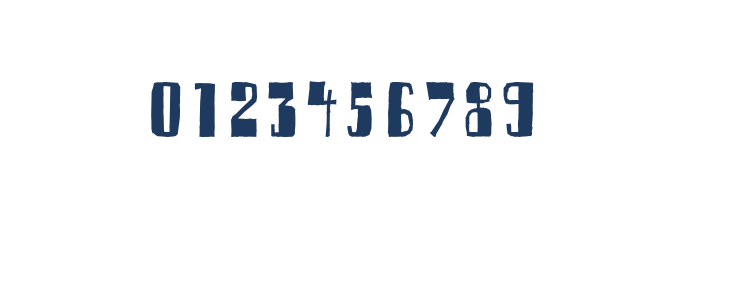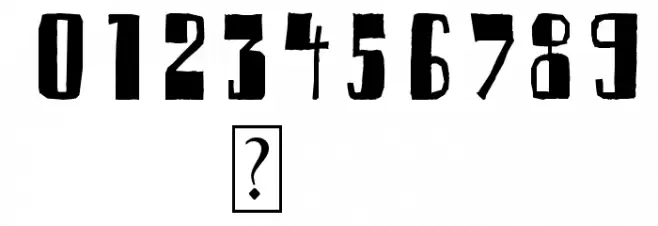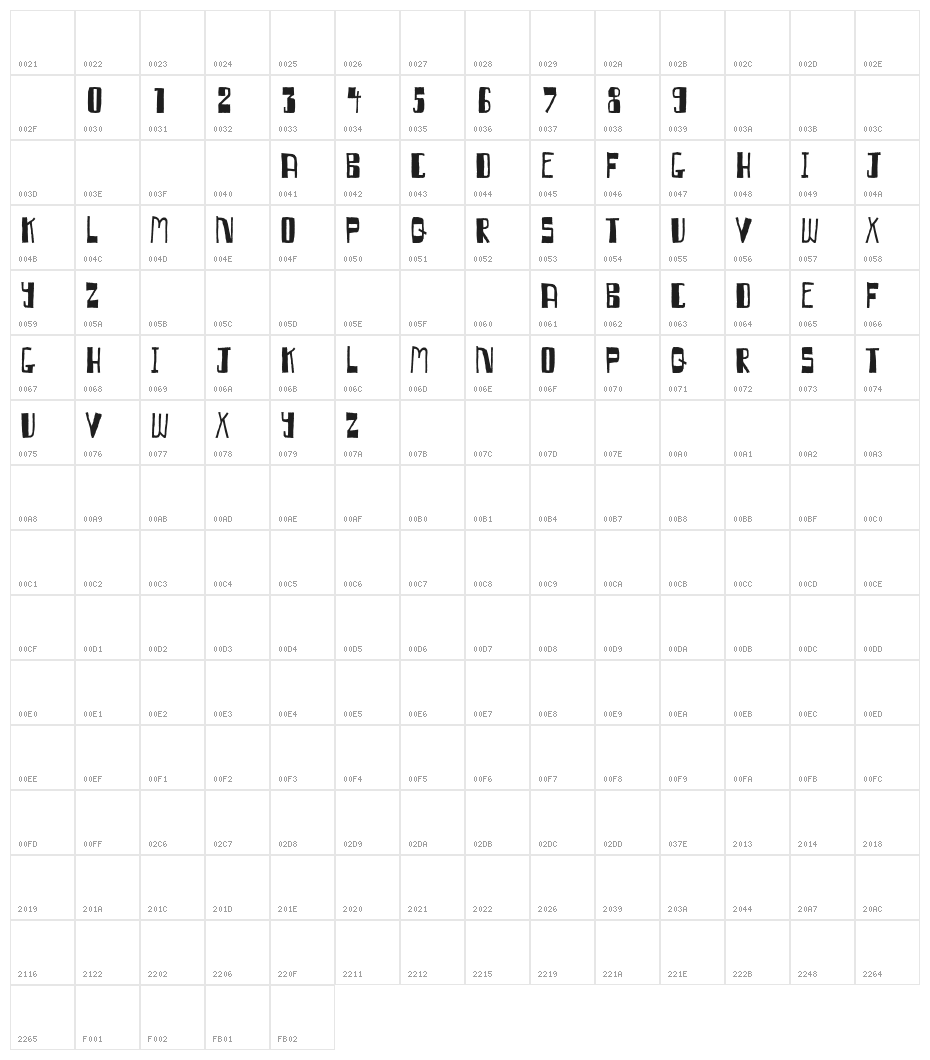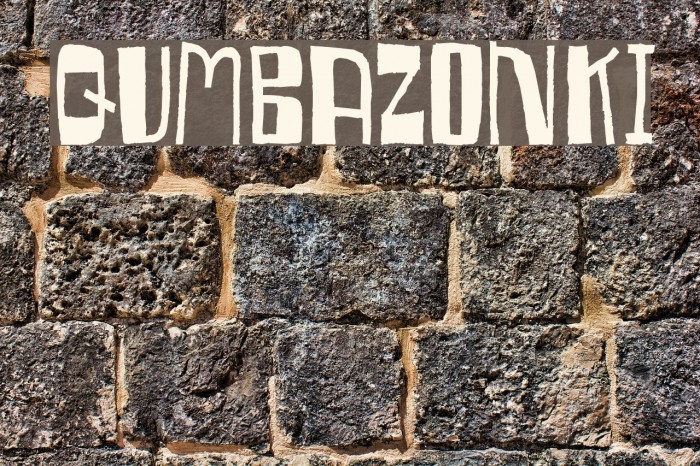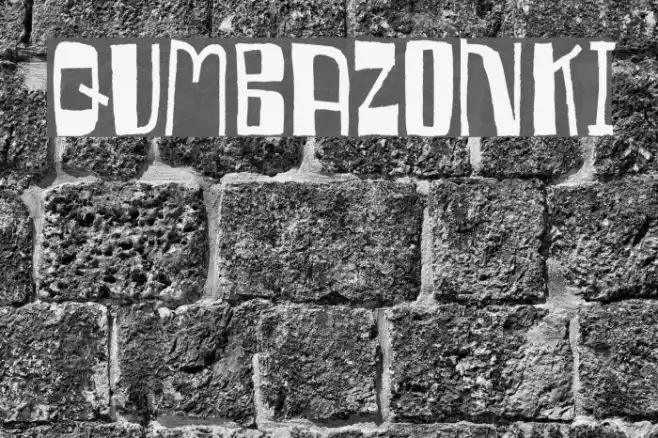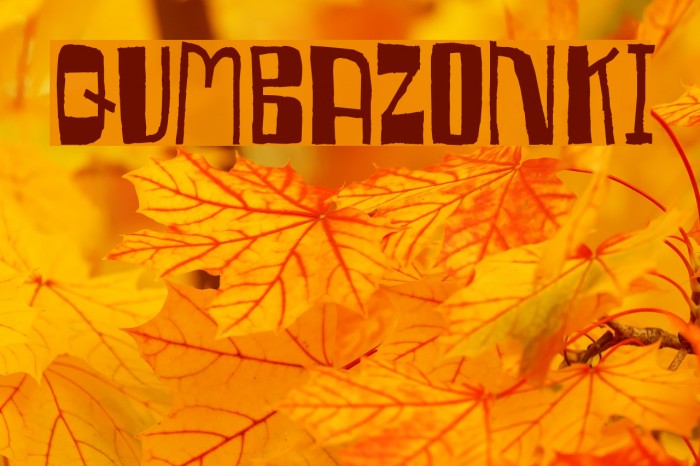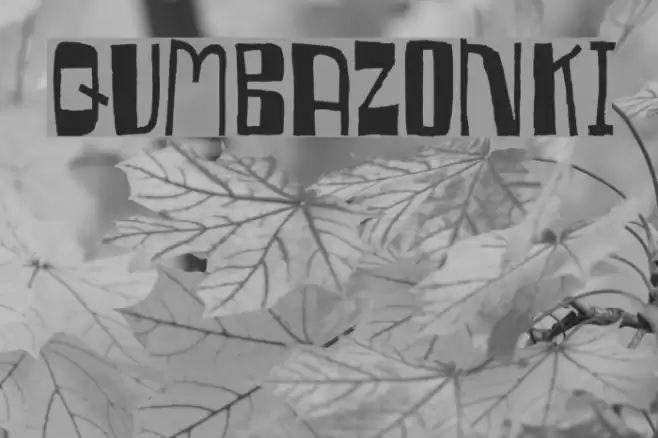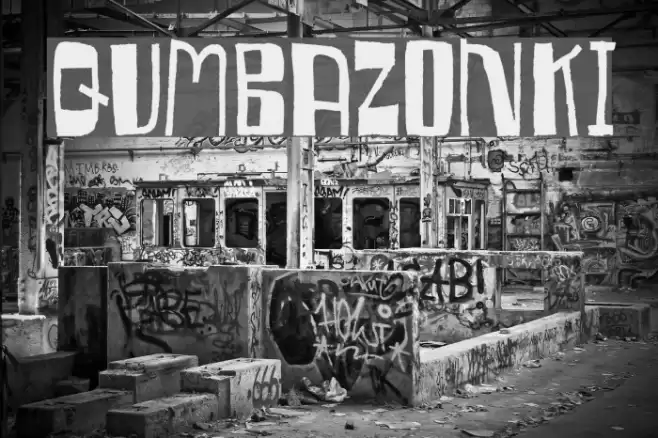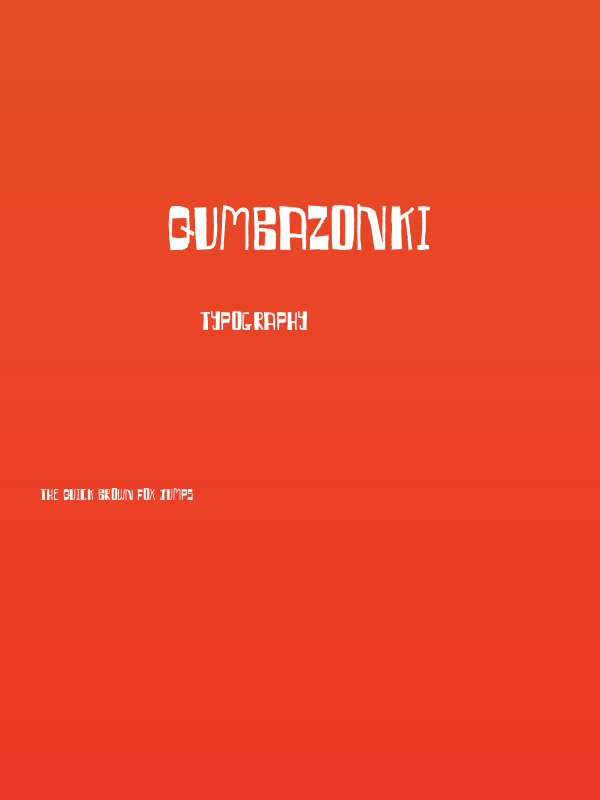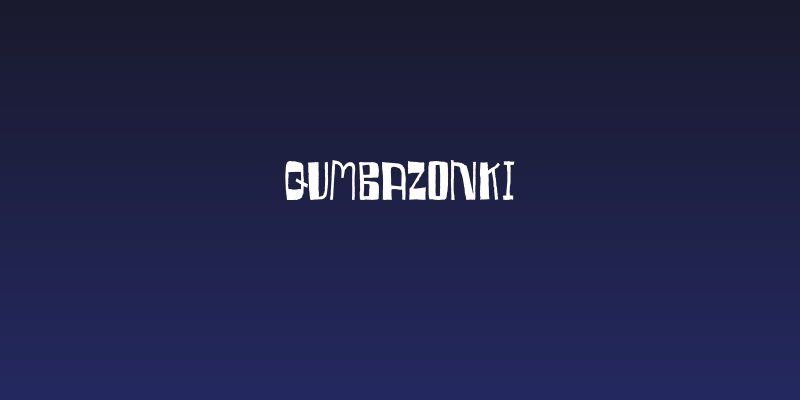
Qumbazonki Font
Qumbazonki Description
This font features a bold and striking design with a hand-drawn aesthetic. The characters are unevenly shaped, giving it a unique and artistic appearance. The uppercase letters are particularly bold, with thick strokes that vary in width, creating a dynamic and energetic look. The lowercase letters maintain the same hand-crafted style, with some characters having exaggerated features, such as elongated stems or irregular curves. The numbers are consistent with the overall style, offering a playful yet bold presentation. The special characters are creatively designed, fitting seamlessly with the rest of the font. This font is ideal for projects that require a distinctive and creative touch, such as posters, album covers, or artistic branding.
| Overall Style | Artistic, Creative, Bold |
| Use Case | Headlines, Logos, Artistic Designs |
| Proposed Projects | Ideal for posters, album covers, artistic branding, and creative projects. |